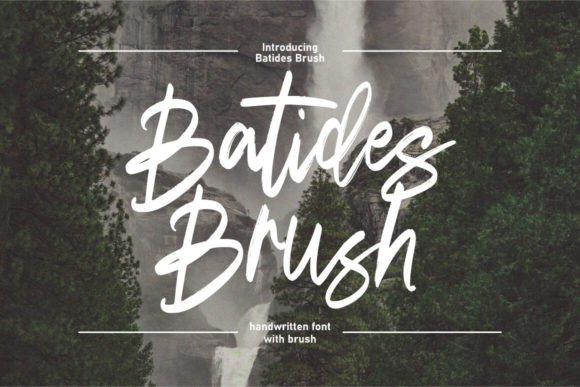
In a world saturated with monotonous typography, Batides Brush emerges as a breath of fresh air, a font exuding individuality and charisma. Crafted with meticulous attention to detail by the renowned Tebaltipis.std, this script font is a masterpiece of digital calligraphy, poised to transform your creative visions into captivating realities.
Batides Brush is more than just a font; it's an artistic expression, a conduit for your imagination to flow freely. Its strokes dance across the page like a virtuoso's melody, carrying your words with grace and eloquence. With its remarkable versatility, Batides Brush seamlessly adapts to a myriad of design endeavors, from logos and badges to packaging and posters. Its presence commands attention, leaving an indelible mark on the minds of your audience.
Beyond its aesthetic allure, Batides Brush is a font of remarkable functionality. Its OpenType features, such as Stylistic Alternates, Stylistic Sets, and Ligature, empower you with creative control, allowing you to tailor the font to your unique design aesthetic. With Batides Brush at your disposal, the possibilities are limitless, ensuring your designs stand out from the mundane and resonate with your audience on a profound level.
Indulge in the artistry of Batides Brush, a font that ignites the imagination and empowers you to craft designs that captivate, inspire, and leave a lasting impression. Download Batides Brush today and unlock a world of creative possibilities. Unleash the power of personality and watch your designs flourish like never before.